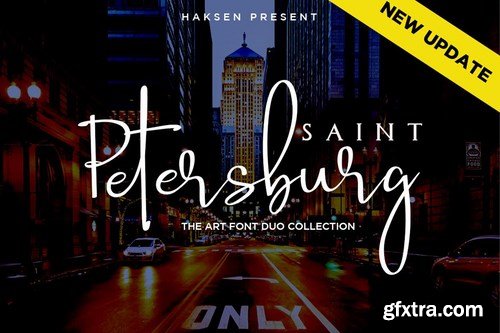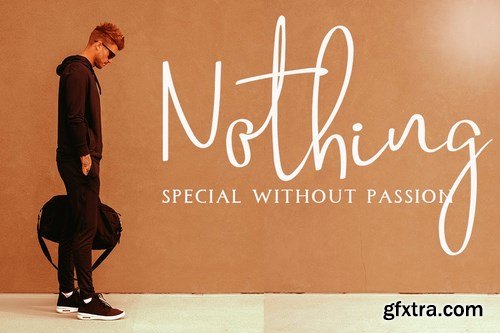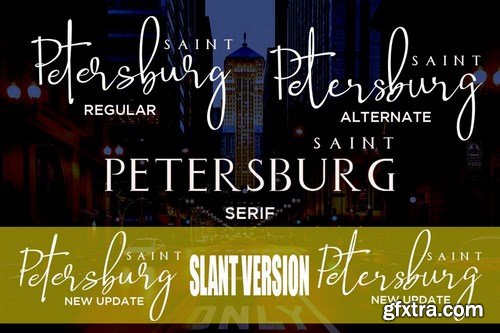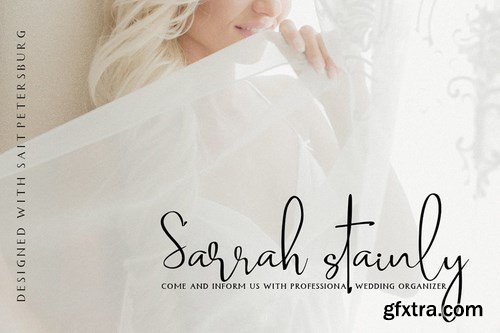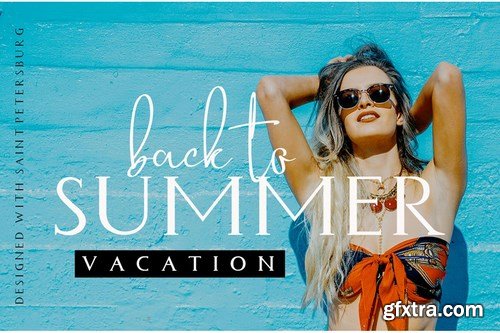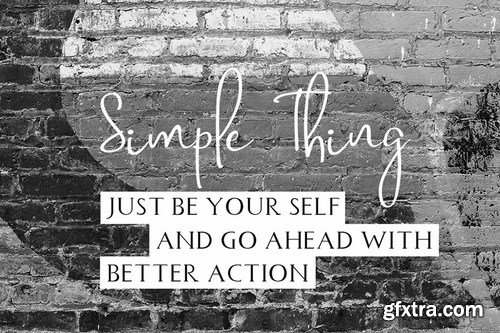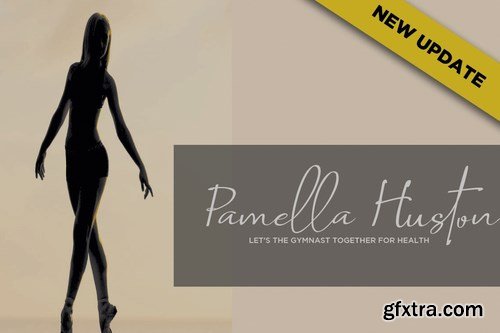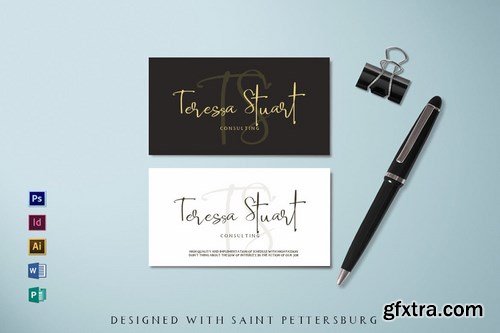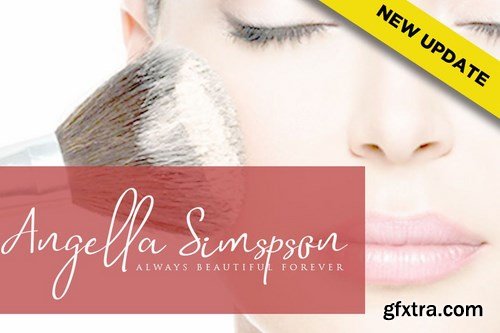
I’m come back with the new ‘Saint Petersburg’ font duo - A fashionable new handwriting font script with some sexy stylish extras:) also good combine the serif. Saint Petersburg font were created to look as close to a natural handwritten script as possible by including over 20 ligatures and serif for the couple of these.
Saint Petersburg • A clean, free-flowing script font containing upper & lowercase characters, numerals and a large range of punctuation.
Saint Petersburg Alt • This is a second version of Saint Petersburg Script, with a completely new set of upper & lowercase characters. If you wanted to avoid letters looking the same each time to recreate a custom-made style, or try a different word shape, simply switch to this font for an additional layout option.
Saint Petersburg Serif • A classy serif font containing uppercase characters, numerals and a large range of punctuation. Creates a perfect pairing contrast with the Saint Petersburg Script fonts.
When creating the font, we should take into consideration that each letter should be able to be connected with other letters. For example, letter "a" should be well connected as well as with "t" and "t" and with any other letters. This limits us: we have to start letter from exact one point and finish in exact second point.
So here come ligatures. I surveyed mostly common letter combinations and made 20 Discretionary ligatures with following letter combos:
aa bb ee ff ll ss tt at et it ot sl st rt ut att ett itt ott utt (in Saint Petersburg)
aa bb ee ff ll ss tt at et it ot sl st rt ut att ett itt ott utt (in Saint Petersburg Alt)
By using these ligatures, you can give realistic handlettered style, escaping font "pattern" effect